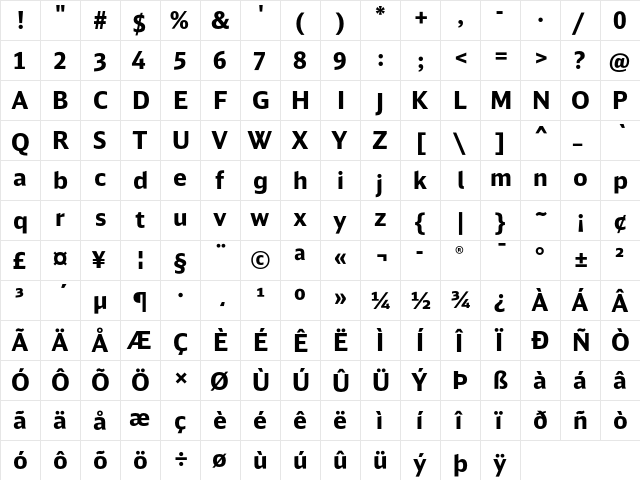
DB Sans Alternate Bold
Design Context for DB Sans Alternate Typeface
DB Sans Alternate is a composed and adaptable typeface that performs quietly and consistently across a wide range of design contexts. Its bold stroke weight gives it real presence on the page.